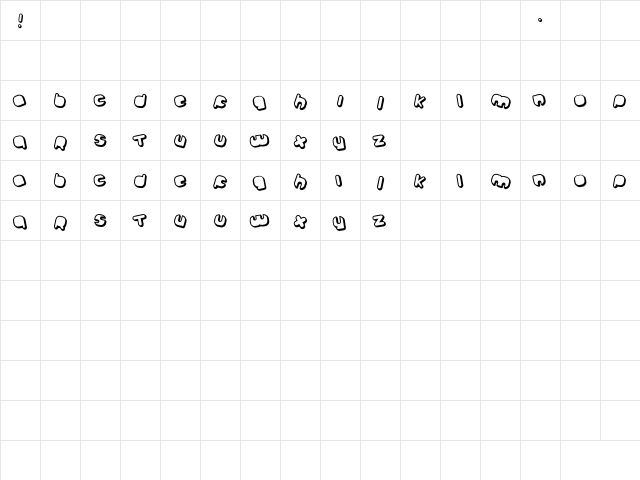
Johanneke Shadow Mixed Regular
Design Context for Johanneke Shadow Mixed Typeface
Johanneke Shadow Mixed brings ornamental detail and strong personality to headlines and identities, where visual impact matters more than quiet functionality.
Font Pairing: Pair with a clean neutral sans-serif for body copy to let Johanneke Shadow Mixed's character lead without overwhelming the composition.
Pro Tip: Treat Johanneke Shadow Mixed as the centrepiece of your typographic hierarchy. One strong heading set in a decorative face can carry an entire layout.